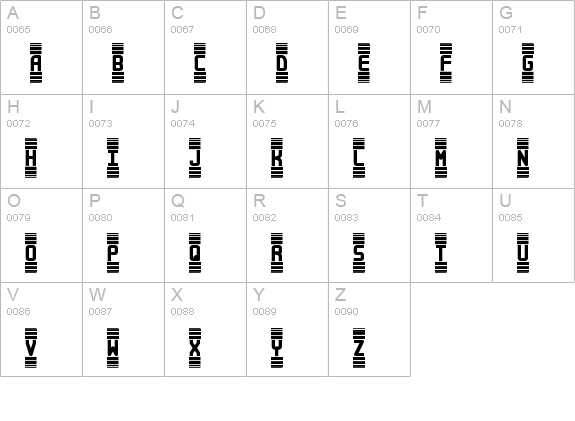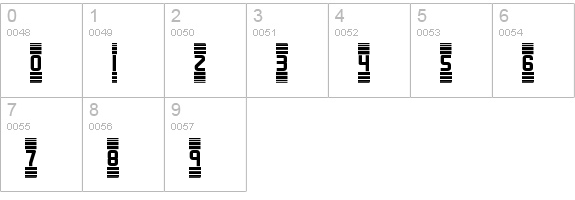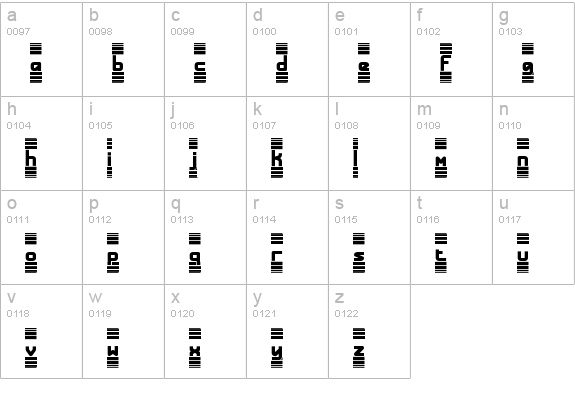
Bandwidth BRK Font Details
Bandwidth BRK font is a modern and stylish typeface that exudes sophistication and elegance. With its clean lines and sleek design, this font is perfect for a wide range of design projects, from branding to advertising to web design. The sharp edges and bold strokes of Bandwidth BRK font make it stand out and grab attention, making it a versatile choice for any creative endeavor. The best part about Bandwidth BRK font is that it is available for free download at FontsMarket.com. This means that you can easily access this high-quality font without any cost, making it a valuable addition to your font library. Whether you're a professional designer or a hobbyist looking to spruce up your projects, Bandwidth BRK font offers the perfect blend of style and functionality. Download it today and elevate your designs with this stunning typeface.